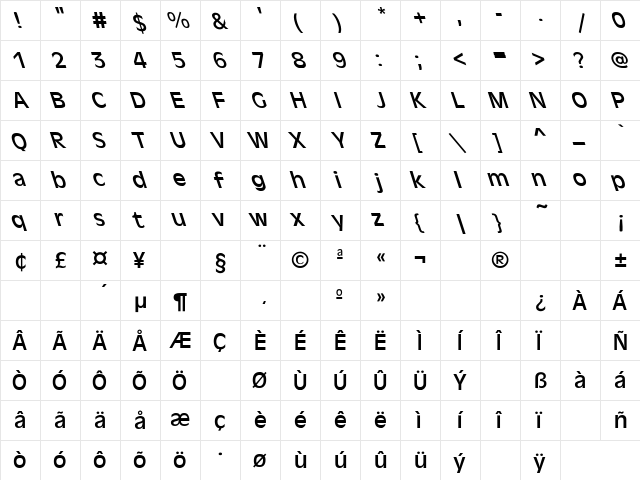
Antique-Olive Lefty Regular
Design Context for Antique-Olive Lefty Typeface
Antique-Olive Lefty has the warm character of retro typography — evoking diners, record sleeves, and the golden age of print advertising.
Font Pairing: Combine Antique-Olive Lefty with a simple slab or neutral sans — period-accurate companions reinforce the vintage feel without competing for attention.
Pro Tip: Lean into Antique-Olive Lefty's period character by pairing it with aged paper textures, muted colour palettes, and vintage illustration styles.